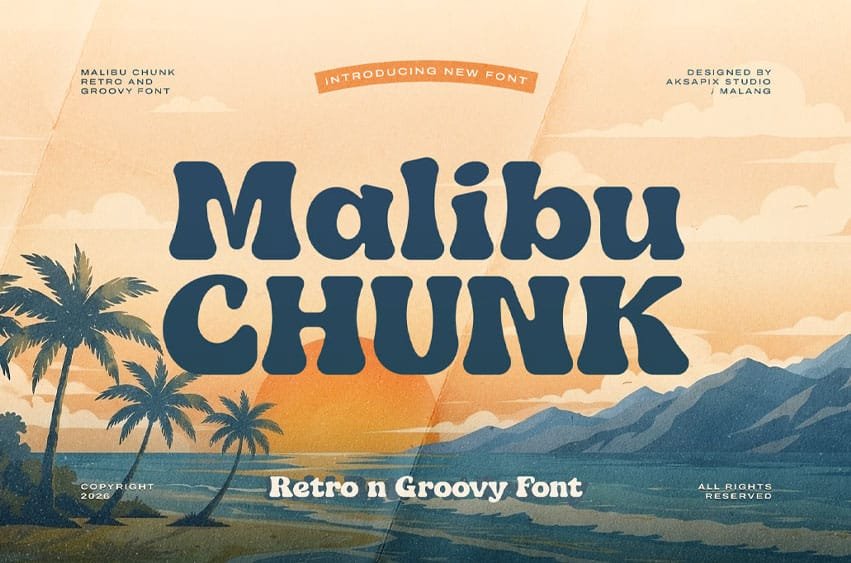
Malibu Chunk Font Brings back the nostalgic summer vibes. This chunky, bold, and bubbly typeface is designed to make your projects pop with fun and positive energy.
Perfectly suited for summer-themed designs, retro branding, vibrant packaging, playful posters, sticker designs, and eye-catching social media graphics.
- Retro & Groovy Style
- Thick, Bubbly & Fun Characters
Give your next creative project a splash of sunshine and groovy nostalgia with Malibu CHUNK.